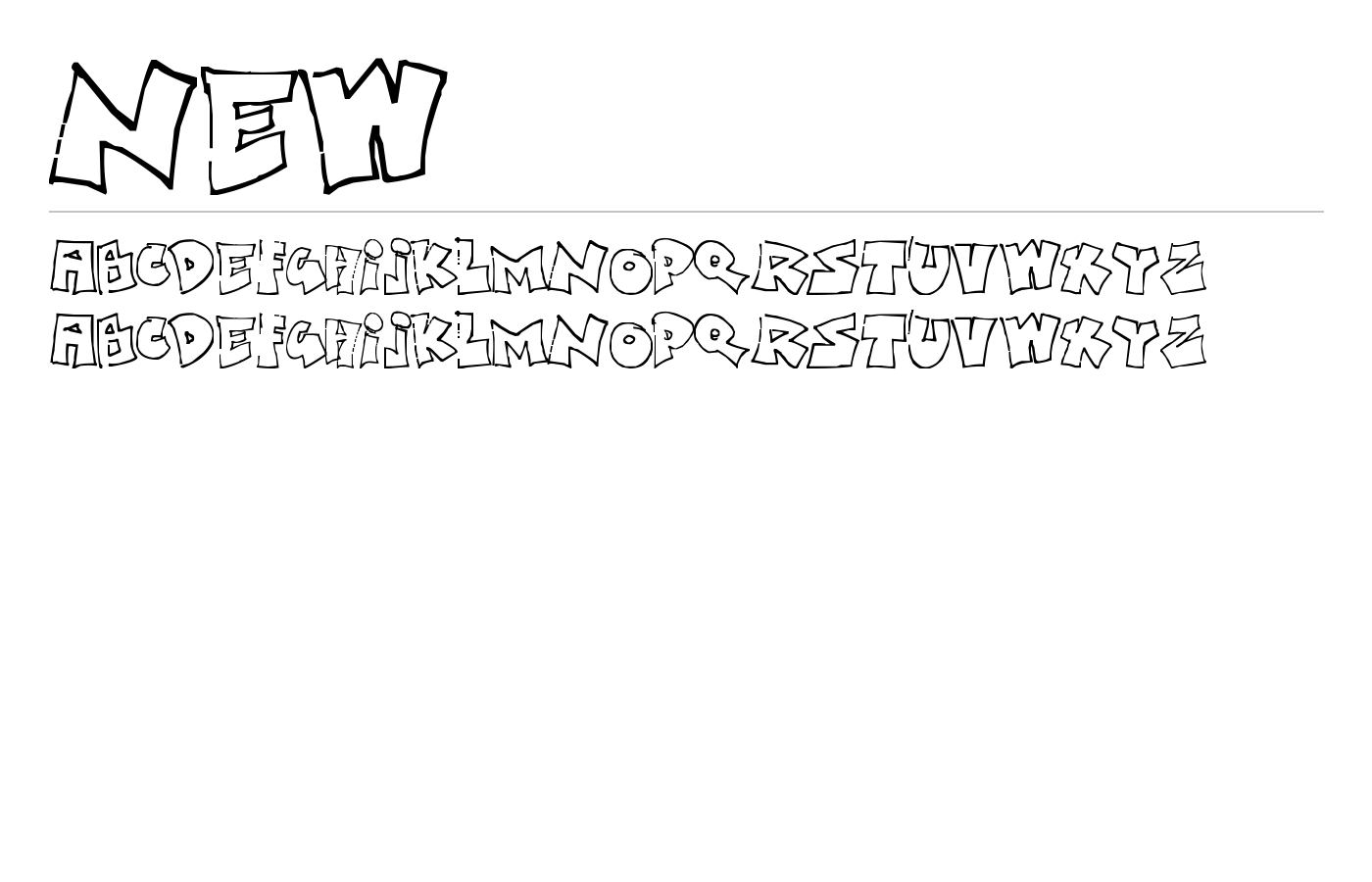
Bored Schoolboy Font is a playful and bold display typeface with a hand-drawn, comic-style character. Its irregular, chunky letterforms create an energetic and informal vibe, perfect for fun, youth-oriented designs like posters, comic art, and casual branding. This font works best where a lively, attention-grabbing look is needed, bringing a sense of creativity and spontaneity.
Bored Schoolboy Font
About Bored Schoolboy Font
| Font family | Bored Schoolboy Font |